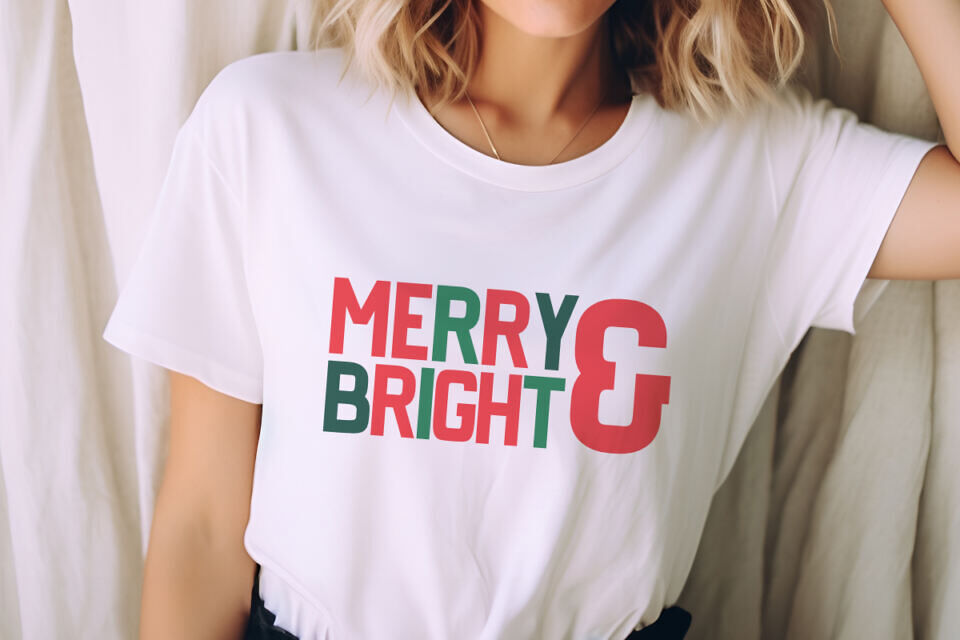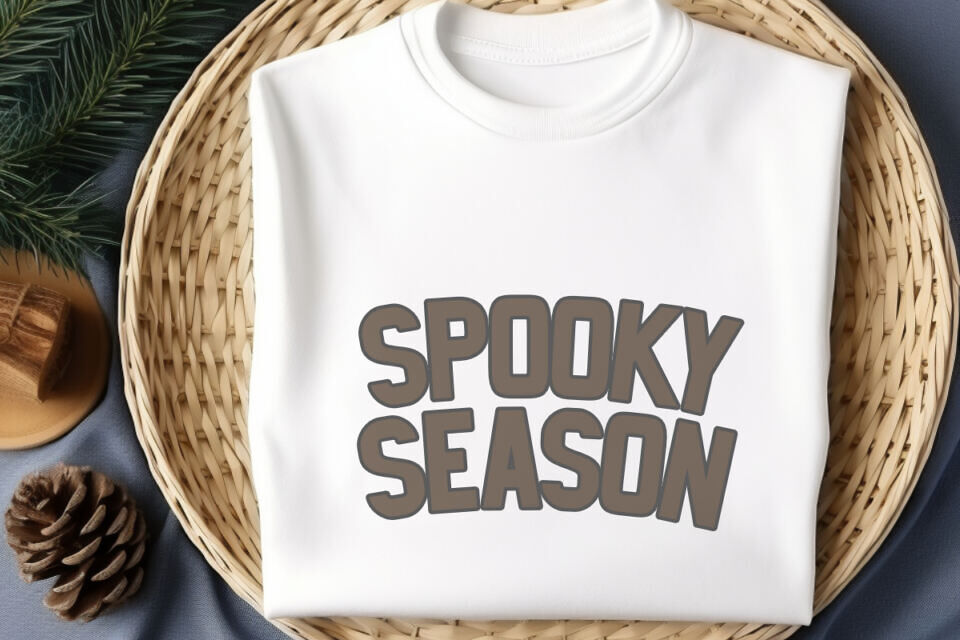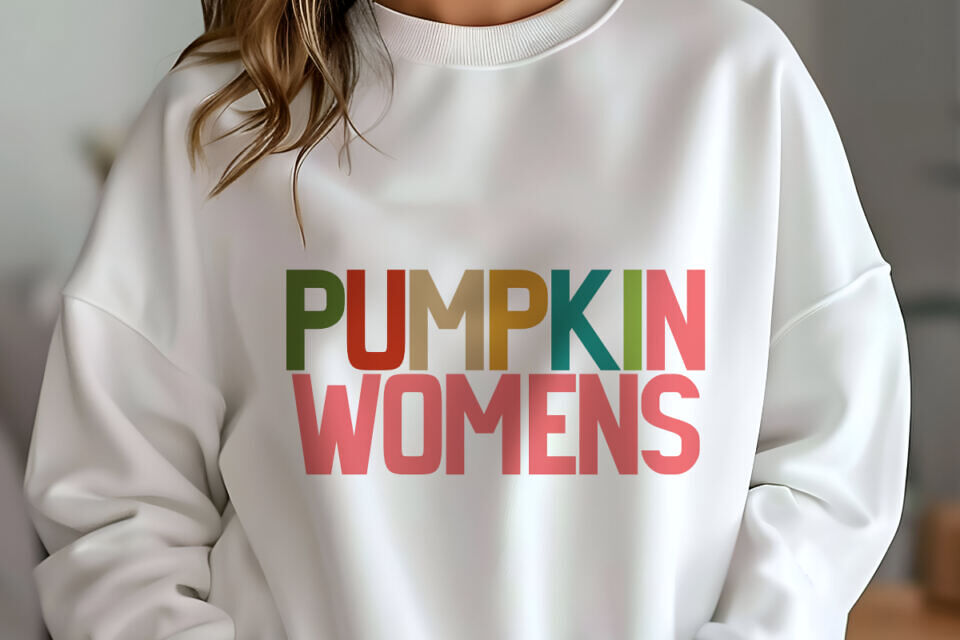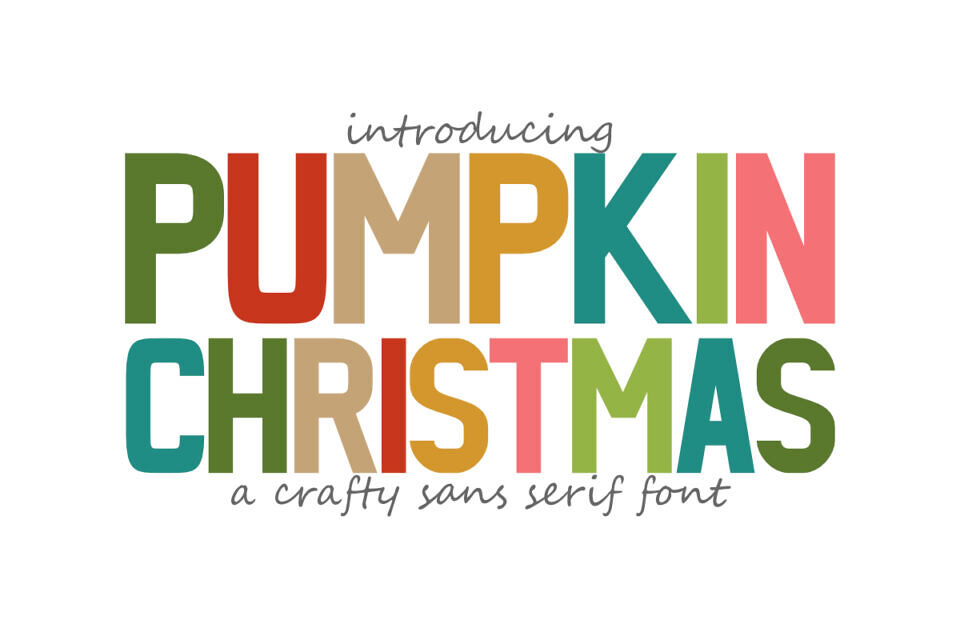
Pumpkin Christmas Font
Pumpkin Christmas is a cute and crafty sans serif font that blends fall charm with holiday cheer, making it the perfect choice for festive designs that celebrate both pumpkins and Christmas.
Ideal for print-on-demand creators, Etsy sellers, Cricut crafters, and sublimation artists who want to create colorful and joyful products. Perfect for t-shirts, mugs, tumblers, tote bags, ornaments, cards, wall art, and seasonal printables.